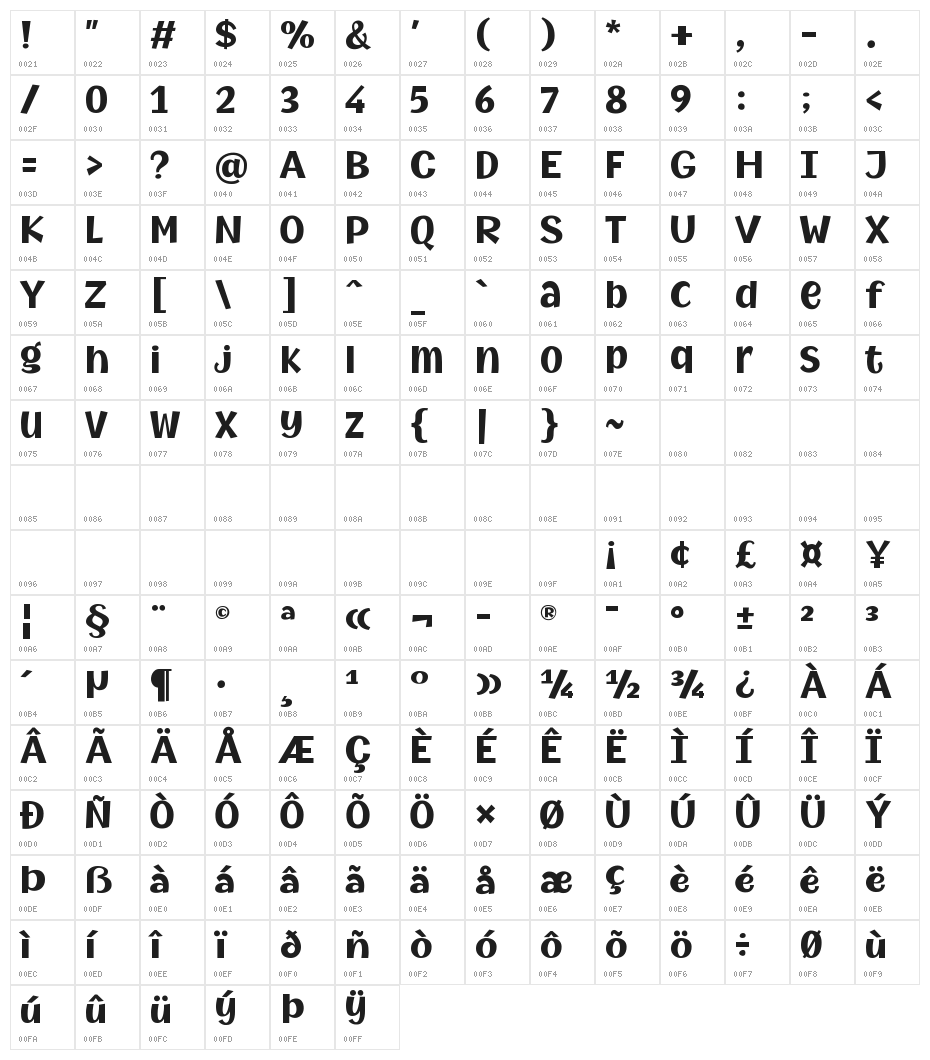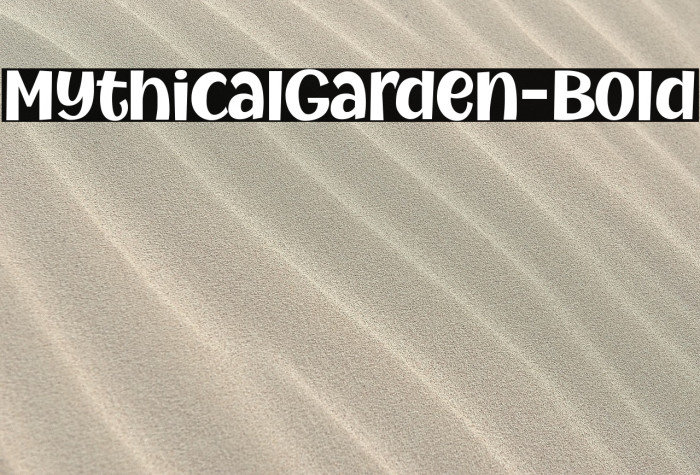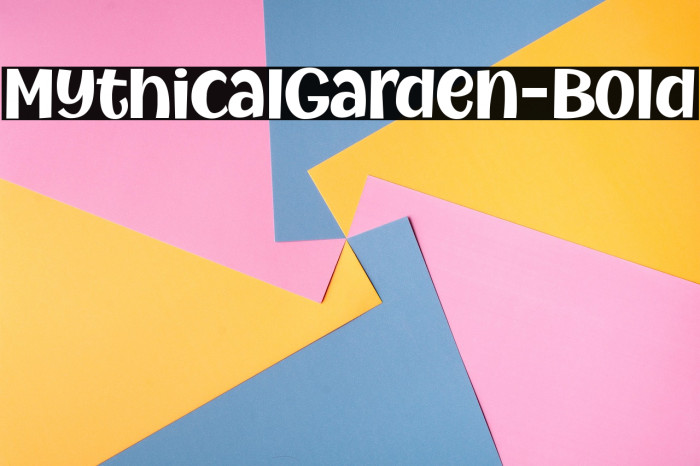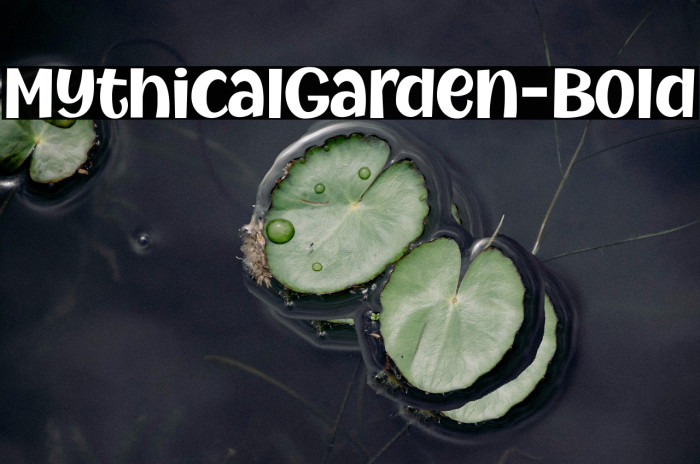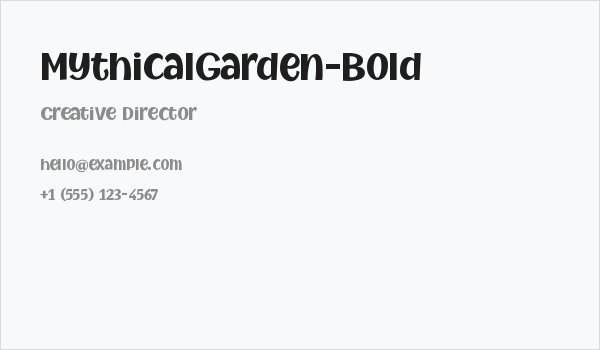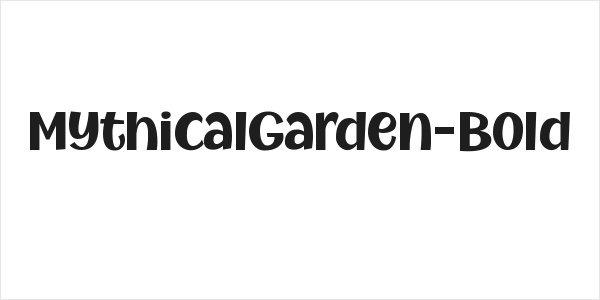
MythicalGarden-Bold Font
MythicalGarden-Bold Description
This font features a bold and playful style with a whimsical touch. The uppercase letters are robust and slightly condensed, giving them a strong presence. The lowercase letters maintain a consistent width, with unique curves and angles that add character. Numbers are bold and clear, ensuring readability. Special characters are designed to match the playful aesthetic, making them suitable for creative projects. The overall design is modern with a hint of vintage charm, perfect for capturing attention.
| Proposed Projects | Ideal for children's books, playful branding, posters, and creative projects that require a bold and engaging typeface. |